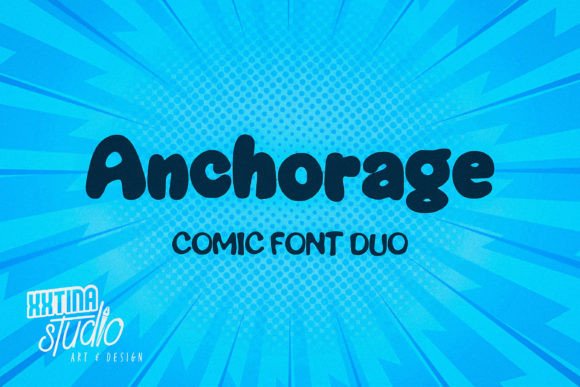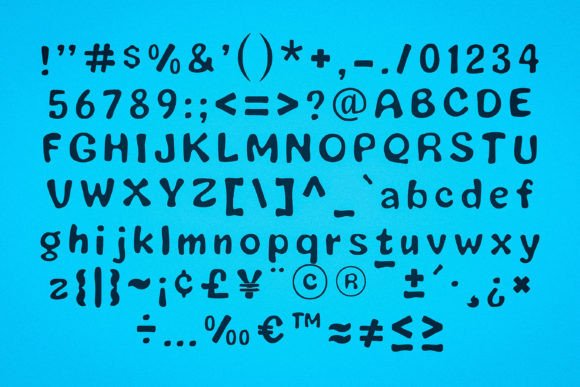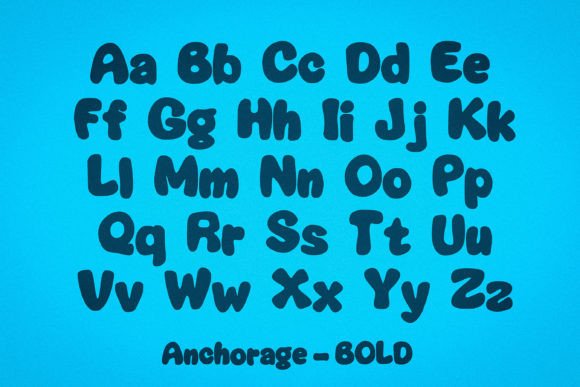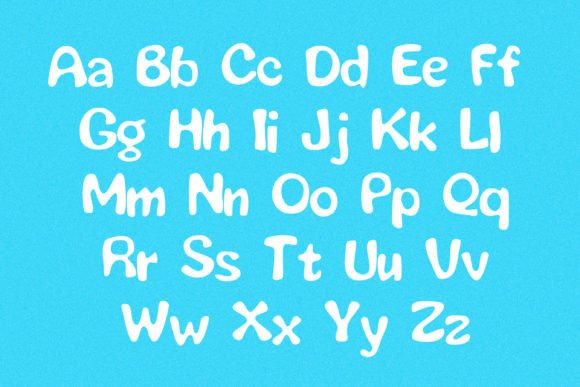
Anchorage Font
About Anchorage Font
Anchorage, a meticulously crafted handwritten font, stands as a versatile and appealing choice for a wide array of design projects. With its masterful design, this font has the potential to become a favorite, elevating each of your creative ideas to the highest level.
The charm of Anchorage lies in its handwritten style, adding a personal touch to your designs. Its adaptability makes it suitable for a variety of creative endeavors, allowing you to infuse a sense of authenticity and warmth into your projects.
Consider using Anchorage for any design where a handwritten font can enhance the visual appeal. Whether it’s creating eye-catching logos, designing engaging posters, or adding a personal touch to social media graphics, Anchorage offers a delightful and versatile solution.
The masterful design of Anchorage extends its potential applications to various creative realms. From digital platforms like websites and social media to print materials such as business cards and merchandise, Anchorage seamlessly integrates into different design contexts.
In essence, Anchorage is more than just a font; it’s a design tool that brings a handwritten charm to your projects. With its masterful design, Anchorage becomes a versatile asset in your creative toolkit, allowing you to elevate each design to its highest potential. Embrace the appeal of Anchorage and let it become a true favorite in bringing your creative ideas to life.